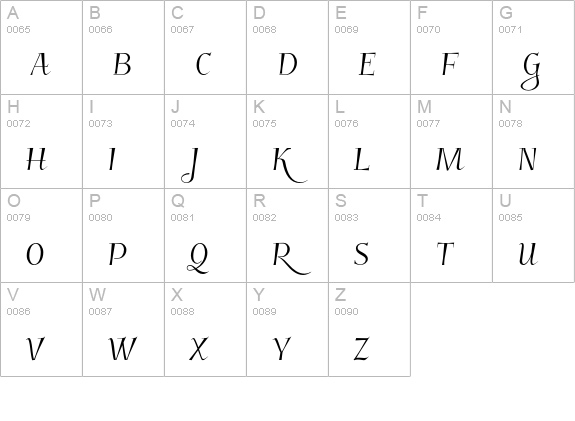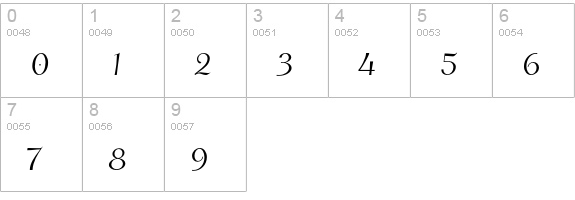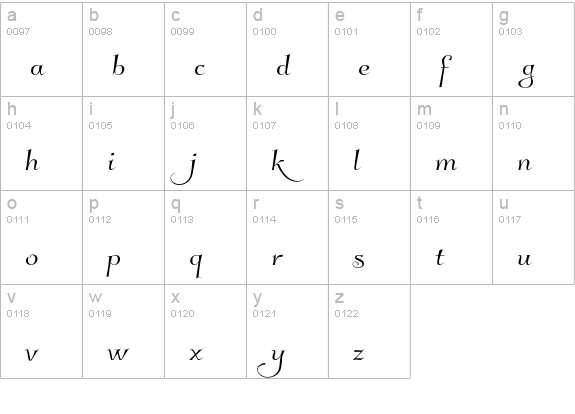
Kleymissky Font Details
Kleymissky is a free for personal use font in the Fancy > Decorative category. It has been downloaded 332 times and is available for Windows, Mac and Linux.
Introducing Kleymissky, a captivating and versatile font that is sure to catch the eye and elevate your designs to new heights. This exquisite typeface combines elegance with a touch of playfulness, making it perfect for a wide range of projects, from branding and logos to invitations and social media graphics. Kleymissky boasts a unique and intricate design, with its delicate curves and beautifully crafted letterforms. Its graceful strokes and subtle serifs add a sense of sophistication and refinement to any composition. Whether used in headlines, body text, or as an accent element, this font effortlessly captures attention and conveys a sense of style. What's even better is that Kleymissky is completely free to download! That's right, you can enjoy all the beauty and versatility of this exceptional font at no cost. Simply head over to FontsMarket.com, your go-to source for high-quality fonts, and grab your copy of Kleymissky today. With its extensive character set and multiple weights, Kleymissky offers endless possibilities for creative expression. Whether you're working on a professional project or adding a personal touch to your designs, this font has got you covered. Its versatility allows it to shine in both print and digital applications, making it a valuable asset for designers of all skill levels. Incorporate Kleymissky into your design arsenal and experience the power of a font that effortlessly combines elegance, versatility, and playfulness. Don't miss out on this incredible opportunity to enhance your creative projects with a font that not only stands out but is also freely available to download at FontsMarket.com. Get your hands on Kleymissky today and let your designs speak volumes.